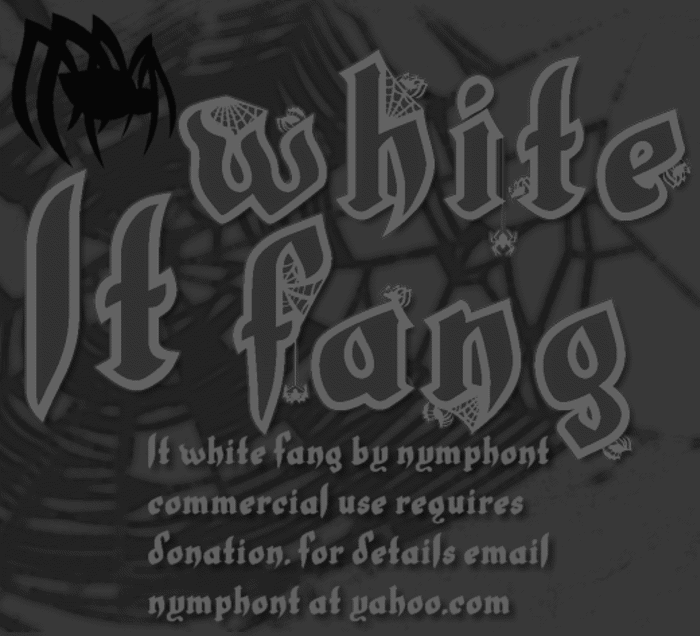
LT White Fang Font
LT White Fang Font is a Old English font and was created on . LT White Fang Font has been downloaded 37,108 times, added to 490 collections, and liked 20 times.
14 years agoCreepy:)
12 years agoLoving the spiders! Don't forget ( and ) for a couple more!
almost 12 years agoUnique yet simple, a hard combo to achieve. Great job!
looks vampiric